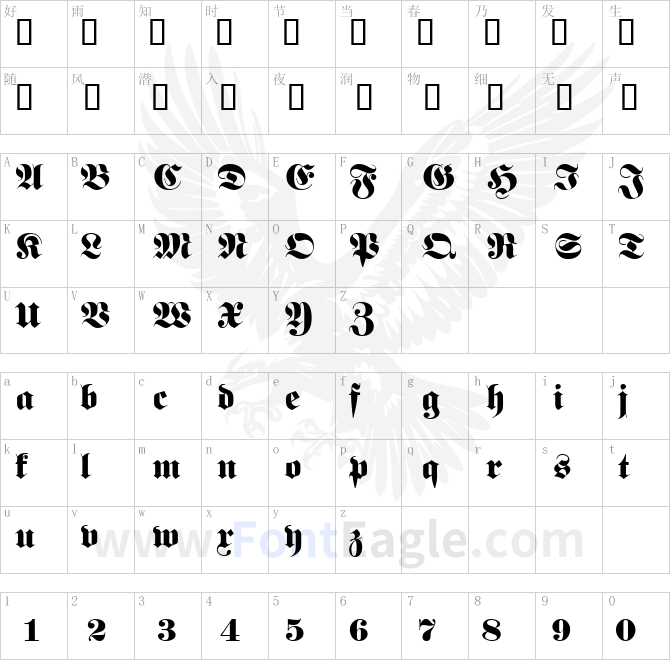
- Font name:Feta
- Font Subfamily ID:Altsys Fontographer 4.0.2 Feta Normal
- Font Full Name:Feta Normal
- Font Version:Altsys Fontographer 4.0.2 25.10.1993
- Postscript:FetaNormal